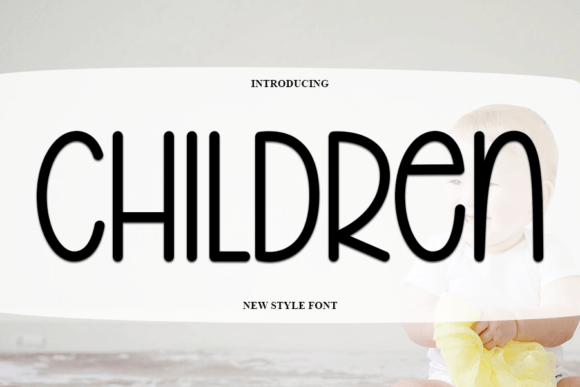
Looking for the perfect sans serif font for your next design project? Look no further than Children Font, created by PAYJHOshop! This cool and modern font is the perfect choice for anyone looking to elevate their design game, and it's especially well-suited for mobile design.
One of the best things about Children Font is its versatility. Whether you're creating graphics for social media, designing a website, or making printable art, this font has the potential to become your new go-to. Its clean, simple lines make it easy to read on small screens, while its unique style adds a touch of personality and flair.
But Children Font isn't just a practical choice – it's also a creative one. With its playful, modern feel, this font is the perfect way to inject a little fun and whimsy into your designs. Use it to create eye-catching headlines, playful logos, or anything else your heart desires.
Of course, the real magic of Children Font lies in its ability to connect with your audience on an emotional level. Whether you're designing a flyer for a kid's birthday party, creating a heartfelt greeting card, or designing a website for a family-oriented business, this font will help you connect with your audience in a meaningful way.